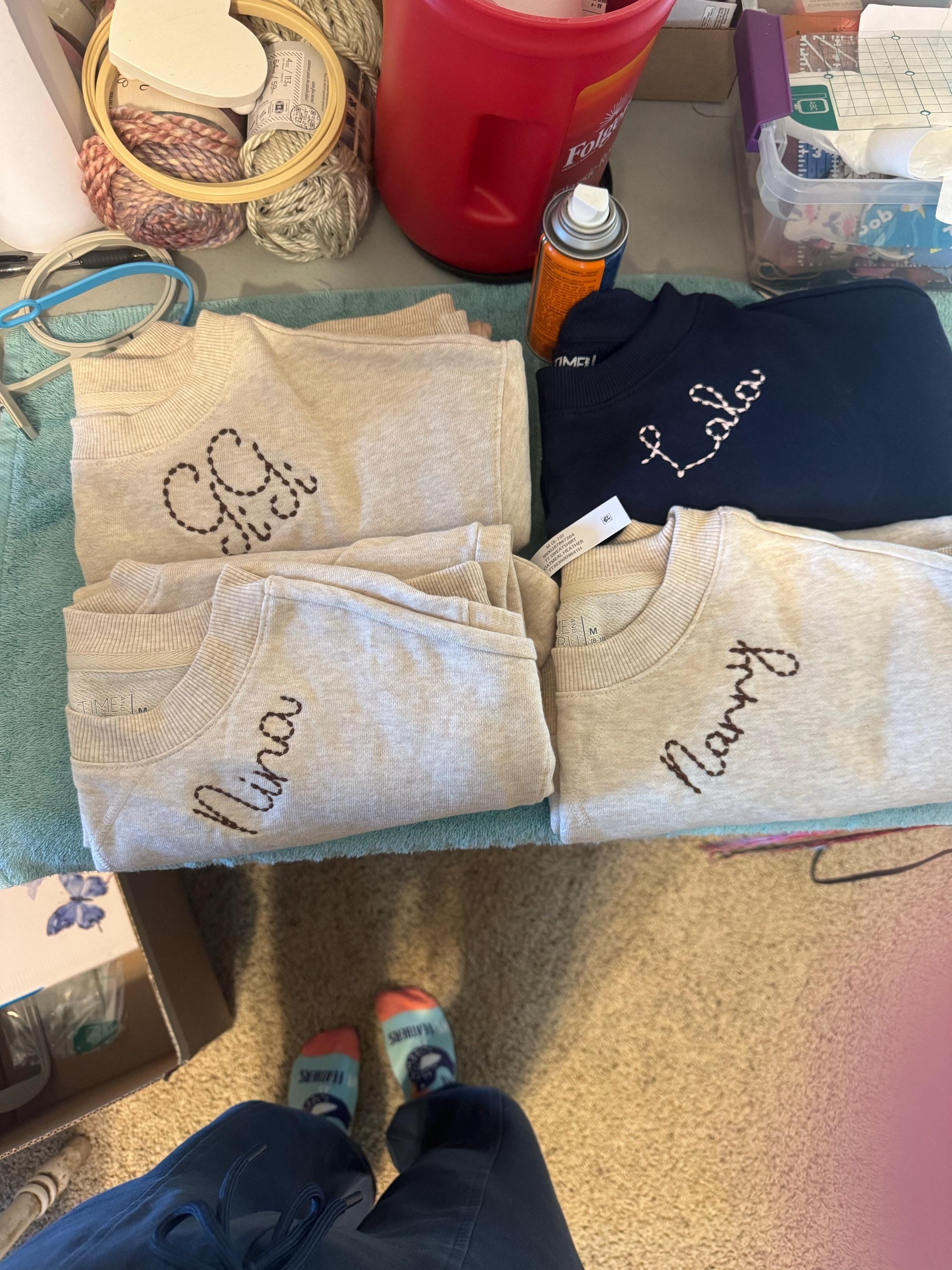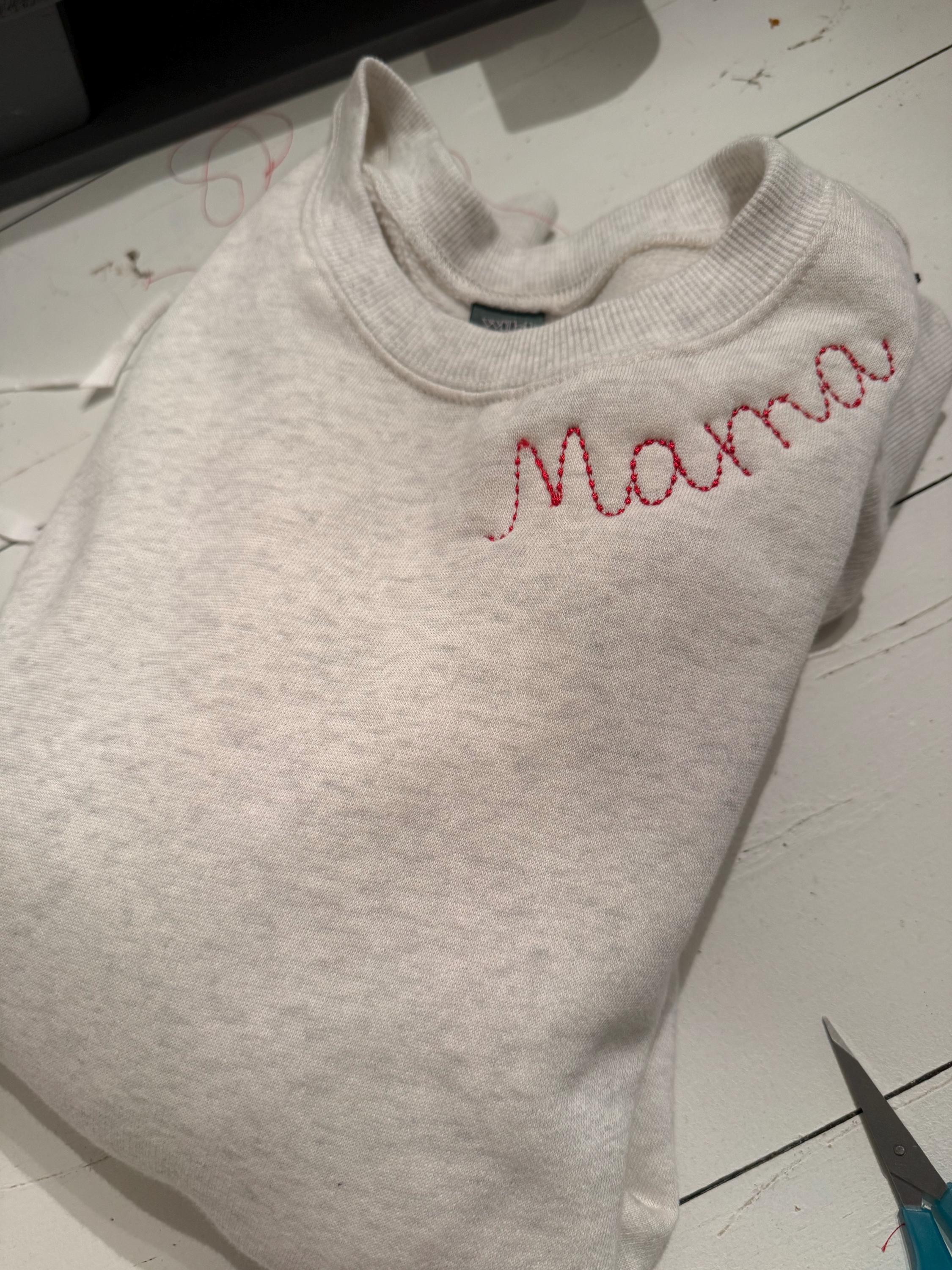
Quick light bean stitch Thin Line FONT mini sizes machine embroidery designs handwritten alphabet letters kids name or saying, BX included
Whole alphabet: uppercase and lowercase letters, numbers and period .
Add-on: the Heart tail
Please note, it has different stitches.